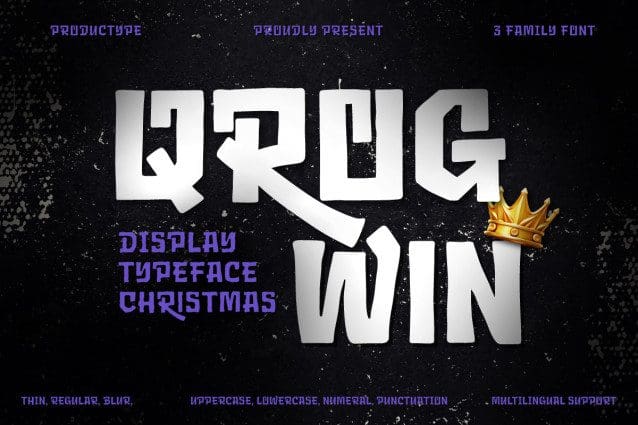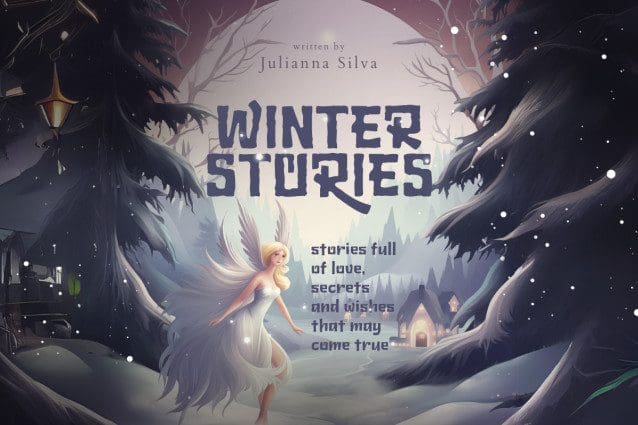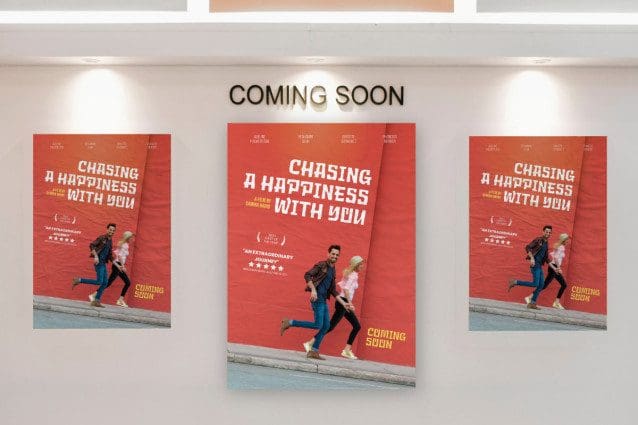
Qrog Win Font
Qrog Win Font, the ultimate Christmas display font that captures the magic and warmth of the holiday season. With its playful curves and festive charm, Qrog Win will add a merry touch to all your Christmas-themed projects, making your designs sparkle with holiday cheer.